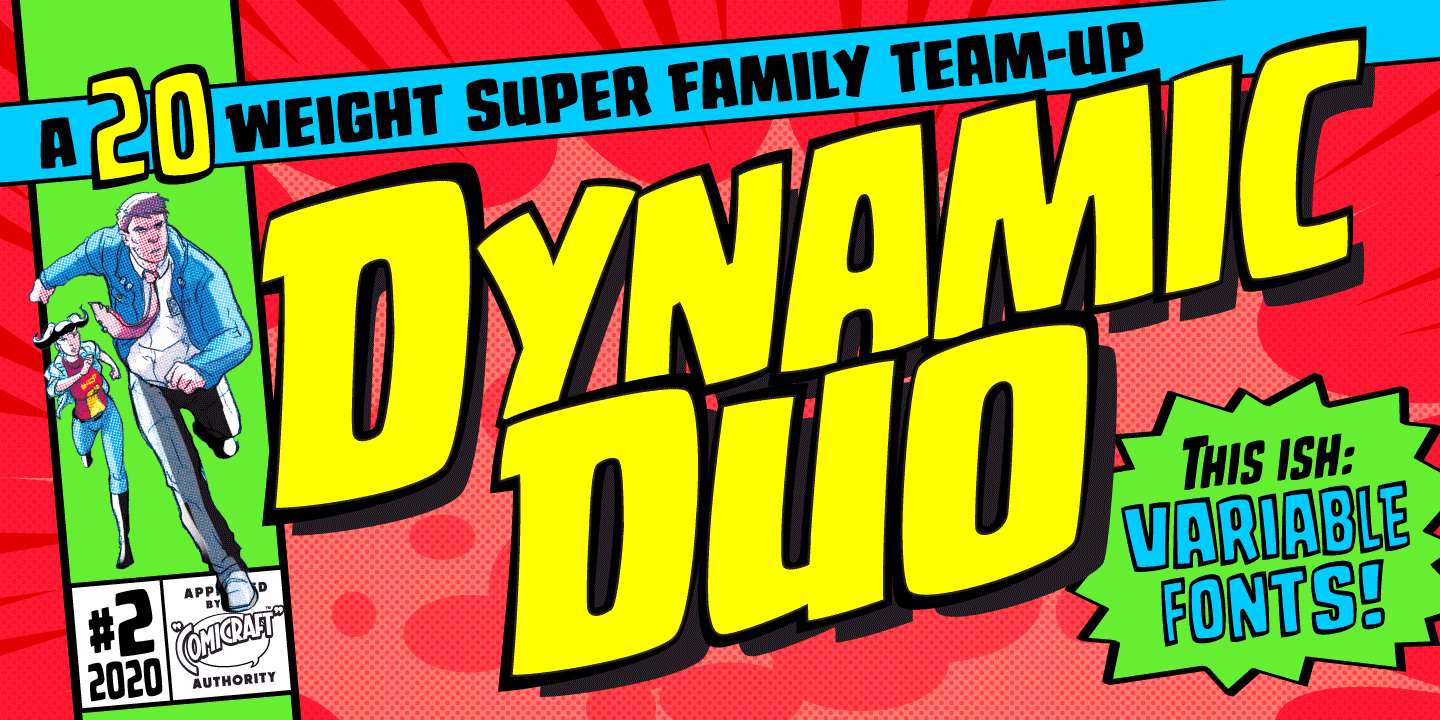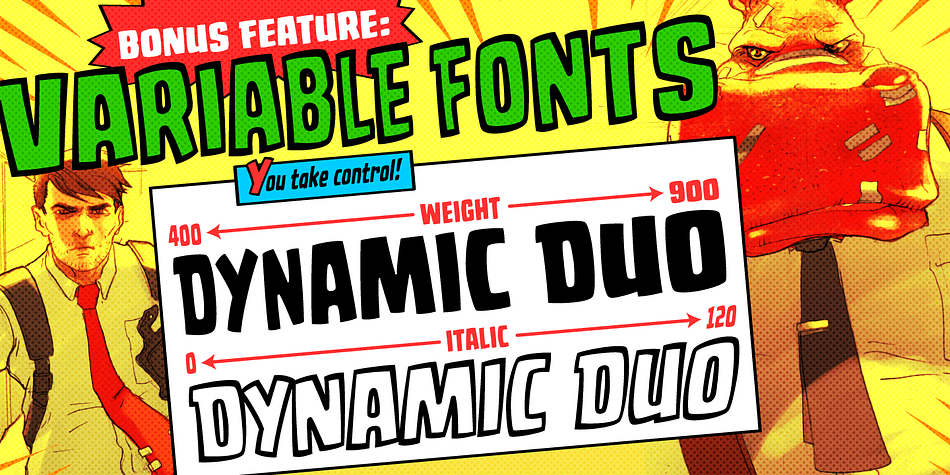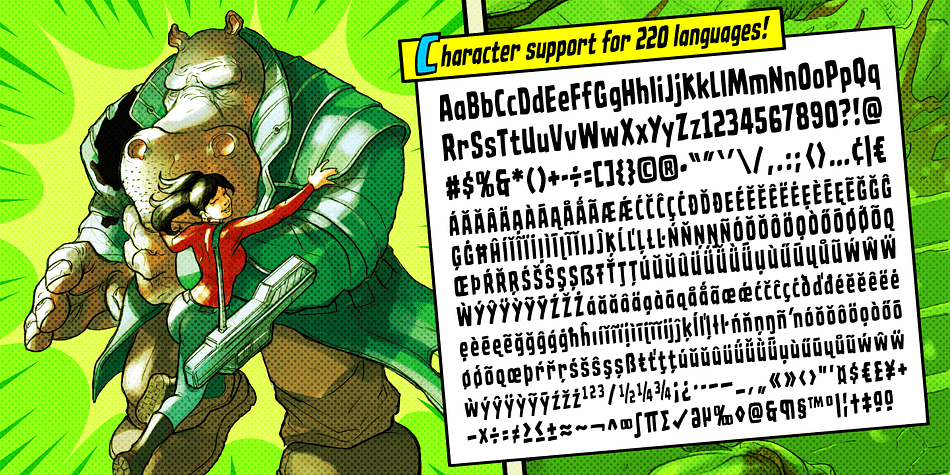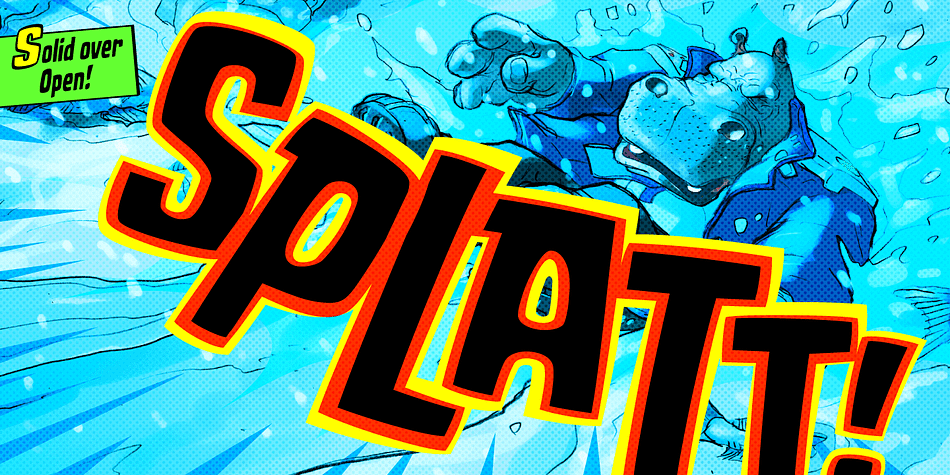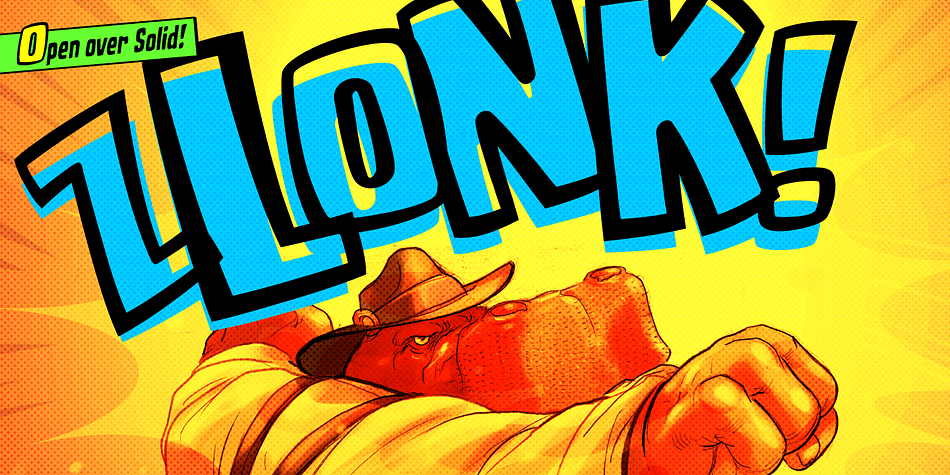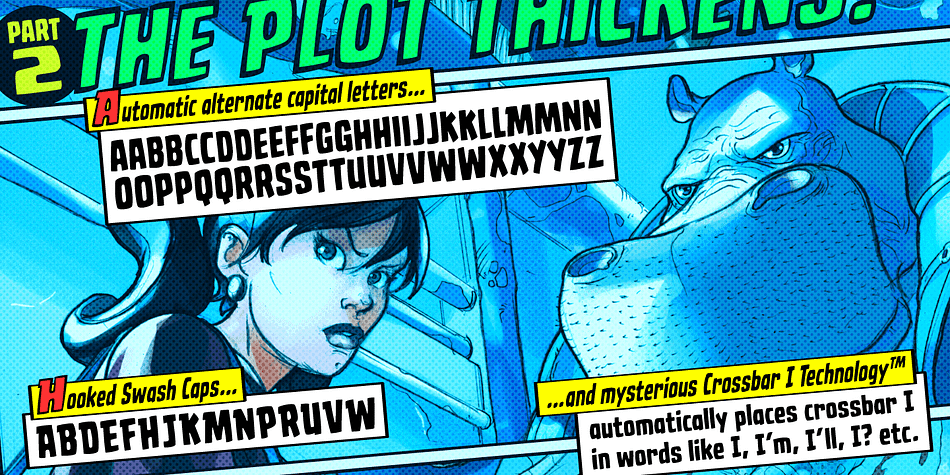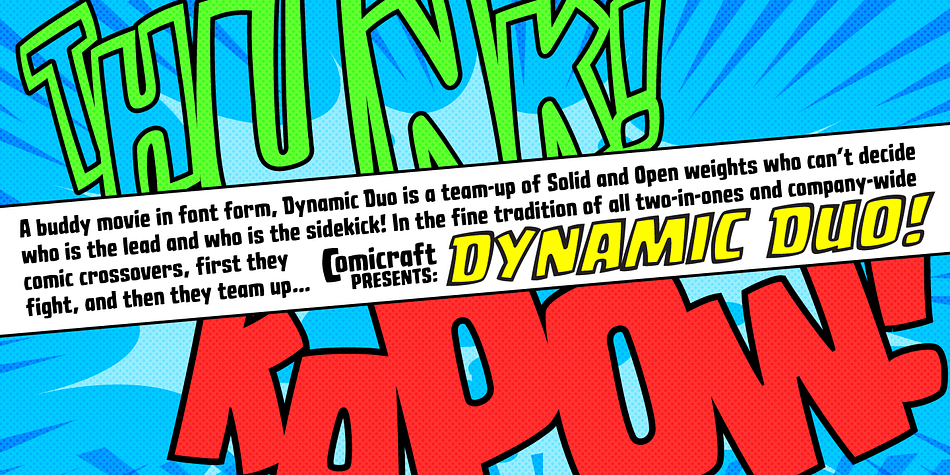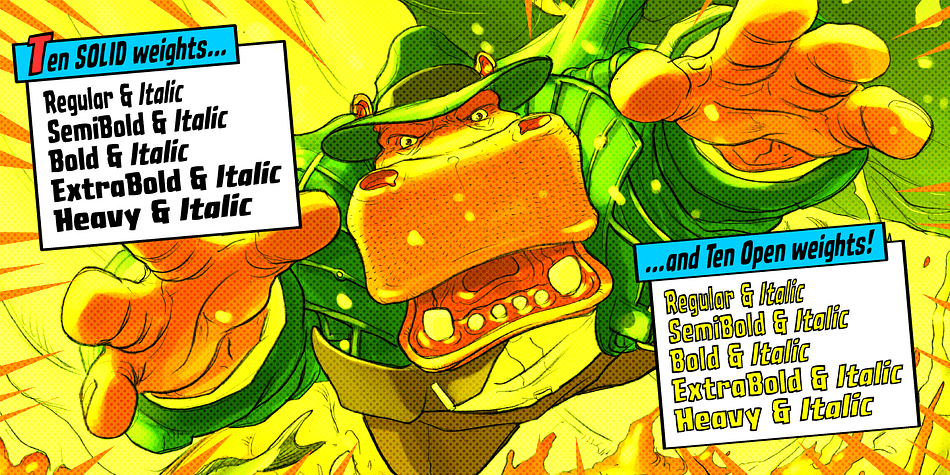
Designed by John Roshell, Dynamic Duo is a comic and hand display font family. This typeface has twenty-two styles and was published by Comicraft.
Batman & Robin! Thelma & Louise! Butch Cassidy & The Sundance Kid! Hip Flask & Farrell! Frodo & Sam! Sonny & Cher! Calvin & Hobbes! Bert & Ernie! Dynamic Duos exist in all forms of literature & entertainment, and now Comicraft is proud to introduce its latest alliterative offering, DYNAMIC DUO!
A buddy movie in font form, Dynamic Duo is a team-up of Solid and Open weights who can’t decide who is the lead and who is the sidekick! In the fine tradition of all two-in-ones and company-wide comic crossovers, first they fight and then they team up — to take your design on the biggest, loudest, most intense adventure of All Time.
Dynamic Duo features comic-book style hook caps and alternate uppercase letters which automatically cycle for a more natural, hand-drawn appearance. Solid and Open weights can be layered to create chromatic effects, and matching variable fonts allow near-infinite control of weight and slant. Each weight contains 478 glyphs and supports 220 languages.